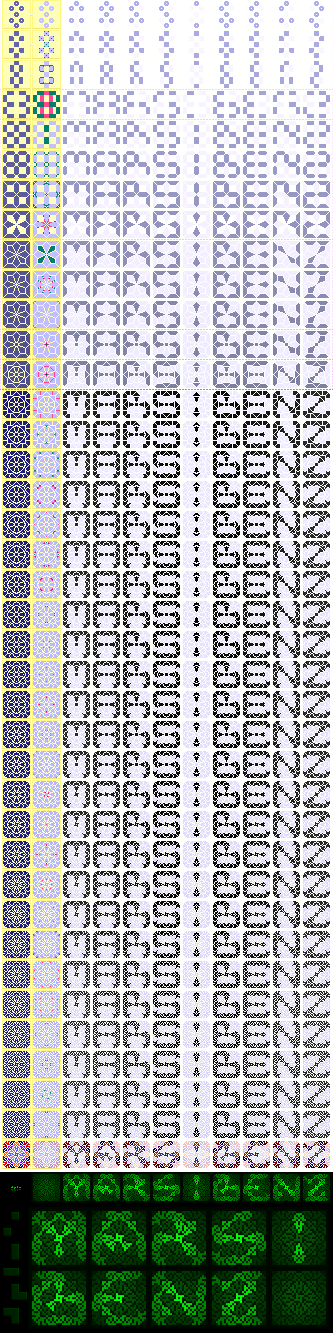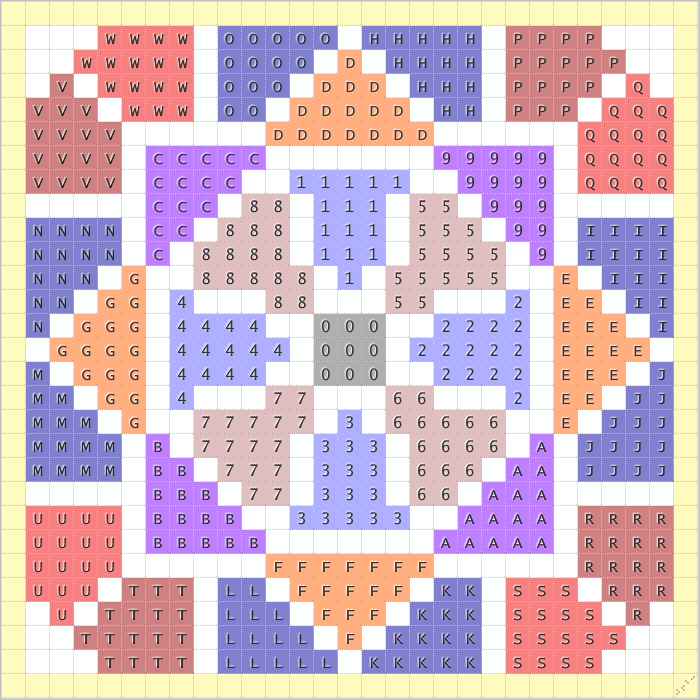
• Diffused 33-Segment Pixel Matrix
a.k.a. 'D33SPM' {by dpla}
7- to 33-segment progression
(bitmap-only step-by-step)***
FONT MAPPING =
Abbreviations:
. 'S' Segment (#)
. 'L' Layer (I2O [Groups: 1/23/45/67])
. 'C' Character (ANSI)*
. 'U' Unicode (00+HEX)
. 'P' Position (Clockwise) [Matrix V1]**
. 'I' In/Inner
. 'O' Out/Outer
I to O table:
.S L C .U P..
==-=-=-==-===
00 1 0 30 Mdl
-- - - -- ---
01 2 1 31 N
02 2 2 32  E
03 2 3 33 S
04 2 4 34  W
-- - - -- ---
05 3 5 35 NE
06 3 6 36 SE
07 3 7 37 SW
08 3 8 38 NW
-- - - -- ---
09 4 9 39 NE
10 4 A 41 SE
11 4 B 42 SW
12 4 C 43 NW
-- - - -- ---
13 5 D 44 N
14 5 E 45  E
15 5 F 46 S
16 5 G 47  W
-- - - -- ---
17 6 H 48 NNE
18 6 I 49 NEE
19 6 J 4A SEE
20 6 K 4B SSE
21 6 L 4C SSW
22 6 M 4D SWW
23 6 N 4E NWW
24 6 O 4F NNW
-- - - -- ---
25 7 P 50 NNE
26 7 Q 51 NEE
27 7 R 52 SEE
28 7 S 53 SSE
29 7 T 54 SSW
30 7 U 55 SWW
31 7 V 56 NWW
32 7 W 57 NNW
NOTES =
* So that the FULL MATRIX can be revealed
by enabling all the segments (33 layers)
via "0123456789ABCDEFGHIJKLMNOPQRSTUVW"
(or any distribution of this full string).
**
Now you may 'fontstruct' my 25TH VERSION…
(the "MARS:BENZ" test showcases this one).
***
The expected final & plain VECTOR DESIGNS
could simply begin with rotating squares…
Even in this early and geometric step #0,
all the 33 segment areas would be similar.
33?!
1 BIT too many… try removing S00 yourself
(or merge by adding a 'separating value').
Use the glyph SPACING as usual in x and y
(even by kerning the variable width font).
I started drawing many V1 GLYPHS on April
(+ several ANIMATIONS for matrix testing).
The inherited 7-SEGMENT matrix is a LIMIT
(e.g. no added border for the diacritics).
@Se7enty-Se7en: thanks, this demo took me a while, too. (The vector version$ might be available in 2020/2030…)
---
The space isn't wide enough to seperate...
I overlooked the SPACE case (in a hurry tonight)…
So, I fixed the font accordingly(*):
6px of horizontal spacing (should be enough - I thought it was null by default, at first)…
{Line spacing issues are not my priority here (tell me otherwise).}
---
*(/!\copy_&_paste:)
0 12348567 9ABCDEFG {HIJKLMNOPQRSTUVW='o'} {MN+TUVW(vertical);G40(horizontal);59+6A(diagonals);PQRS='k'}<br.>
0123485679ABCDEFGHIJKLMNOPQRSTUVW WVUTSRQPONMLKJIHGFEDCBA9765843210<br.>
IHKJMLONQPSRUTWVA9CBEDGF214358760 FONTStruct…[012485679BCEGHIJKMQRUVW]<3_DPLA
You have totally lost me ................................... my artist's eye loves the shapes though and my brain loves the green:D It's the "maths" that don't fit in ;)
This pixel art error diffusion by hand (sort of a tech demo) could be used as LCD on the dashboard of your future green car, indeed!^^ (not necessarily Mercedes, or filled with spinach juice either…)
Besides, in the same version 25, I like the bacteria look of this kind of tiny 'spatial colonization' (you were awared, Elon!) :-)
Comment by dpla 21st march 2018
I've just fixed the order (keys) of the segments 5-8 (same cause: I hurried tonight)…
So, a new download is recommended.
I'm going to do the same fix on the cloned font, sorry in advance.
Comment by dpla 21st march 2018
Fine tuned the horiz. spacing (3px, as in the green sample)…
→ Font updated. You can try pasting the following text:
---
“mars:benz”_preview_sample_(in_fancy_uppercase_but_first_version):
03859CDEGIJMPQRTUVW 04679CDEGHJMORTU 014569ADGMORSTUVW 024ACDEFGHJKLNTU 13DF 0127CDEFGJKLMNORSTUW 04BCDFGHKLMOPRS 086ABCEGIJMQRSTUVW 0579ABCDFHKLPSTV
In the MARS:BENZ text, 038[]59...014[]569...STUVW 0[]579A... (The [DCS] controls are in brackets...